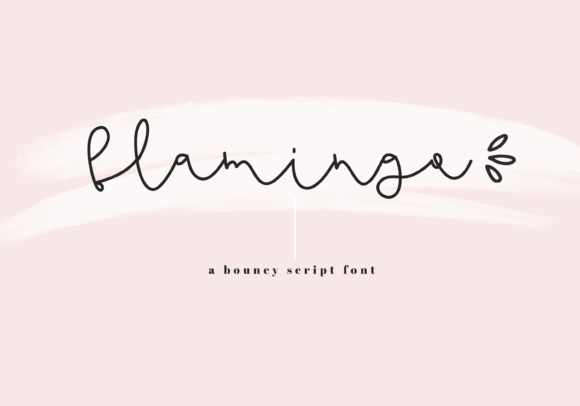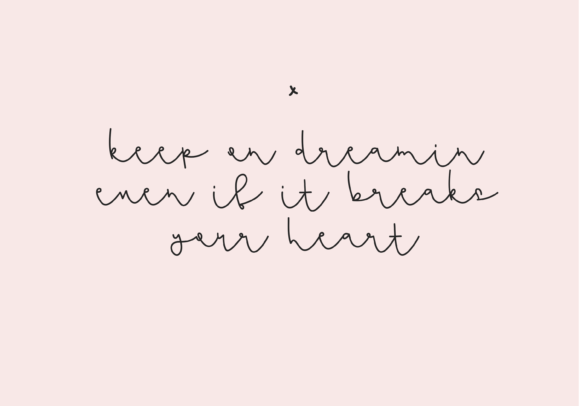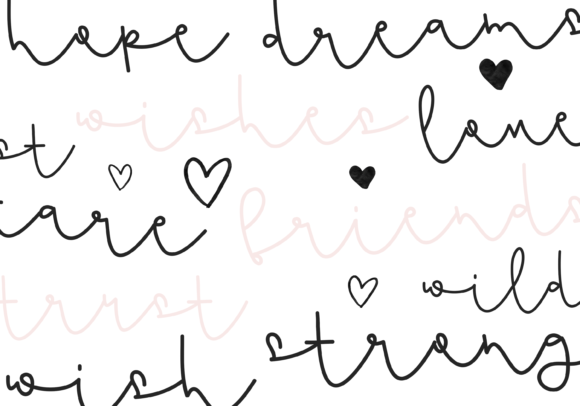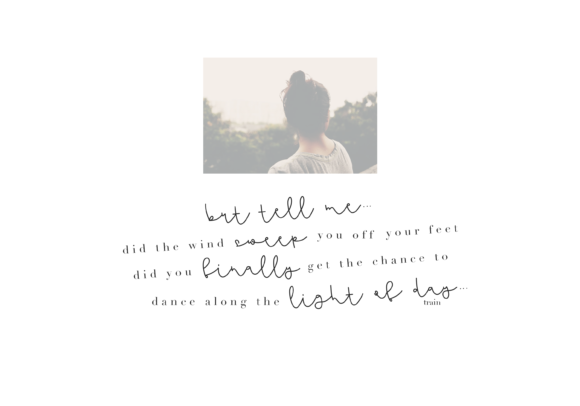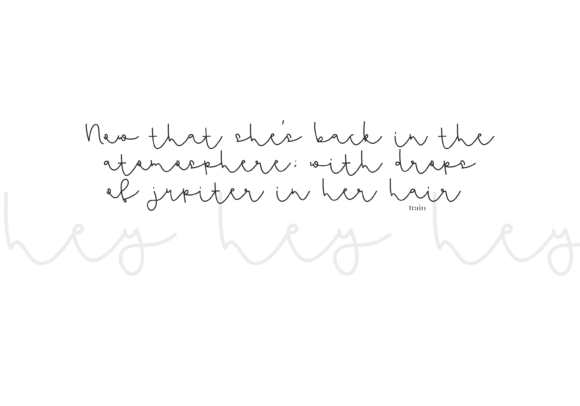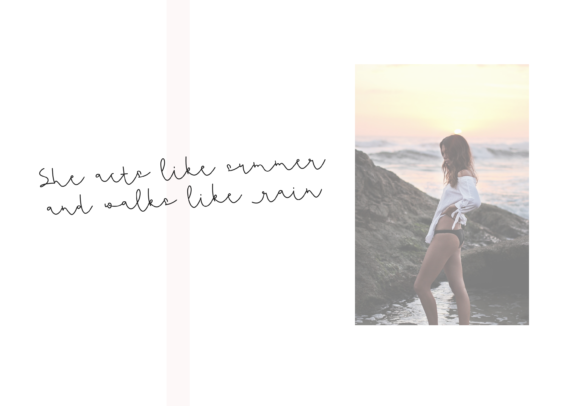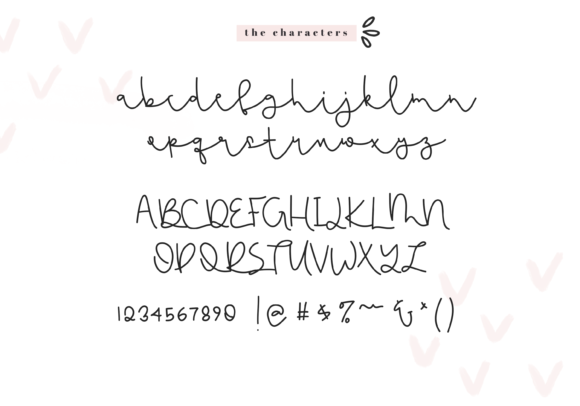
HomeScript FontsFlamingo Font Script Fonts Flamingo Font FacebookXPinterestWhatsApp Flamingo Font Poster 2 Flamingo Font Poster 3 Flamingo Font Poster 4 Flamingo Font Poster 5 Flamingo Font Poster 6 Flamingo Font Poster 7 About Flamingo Font Flamingo is a fun, bouncy script font. Fall in love with its cute, yet elegant style! DOWNLOAD NOW People also explored Little Plant Font Shatfor Font Vitamin Font Giselya Font Patriast Font Great Bantley Font Hazelnuts Font Baby Alone Font Gingerly Font 288 0 TagsFlamingo Font Previous articleConté Script Plus FontNext articleHimalaya Font LEAVE A REPLY Cancel reply Comment: Please enter your comment! Name:* Please enter your name here Email:* You have entered an incorrect email address! Please enter your email address here Website: Save my name, email, and website in this browser for the next time I comment. Personal Use Free Oatmeal Personal Use Free Read more about this font Hunters Personal Use Free Read more about this font Edo SZ Personal Use Free Read more about this font Barbatrick Personal Use Free Read more about this font BLOG To increase your work productivity, choose the most readable fonts. In today's fast-paced work environment, where digital communication and information consumption are integral to our daily routines, the choice of fonts can significantly impact... Free Fonts Risk: Why Free Fonts Can Be Dangerous for Designers Using Fonts in Digital Marketing: Tips to Strengthen Your Brand Identity Top 10 Handwritten Fonts That Elevate Your Designs